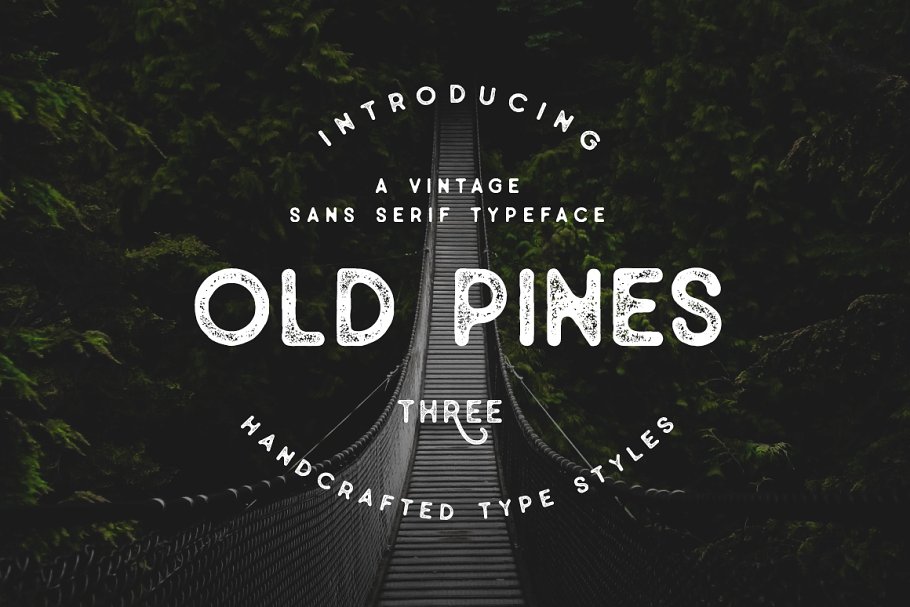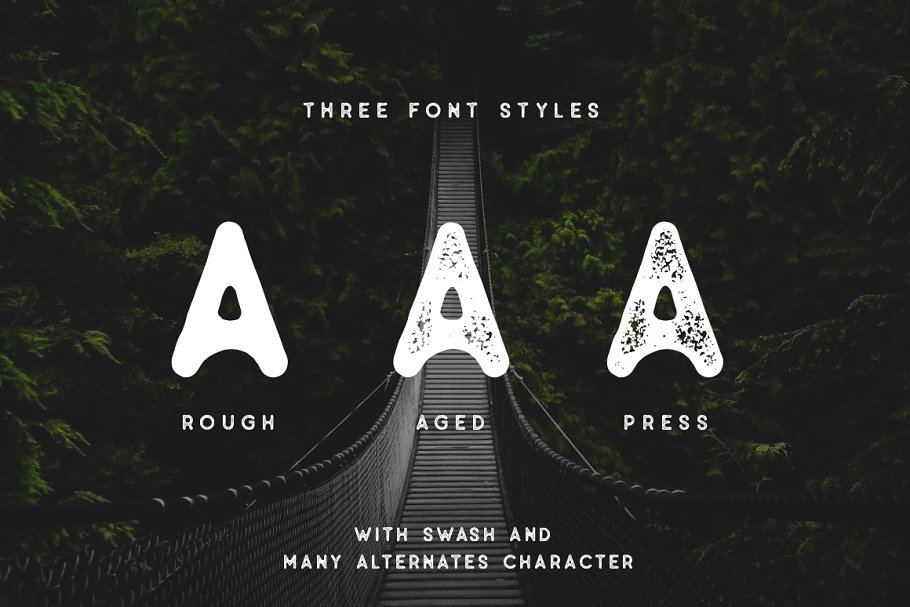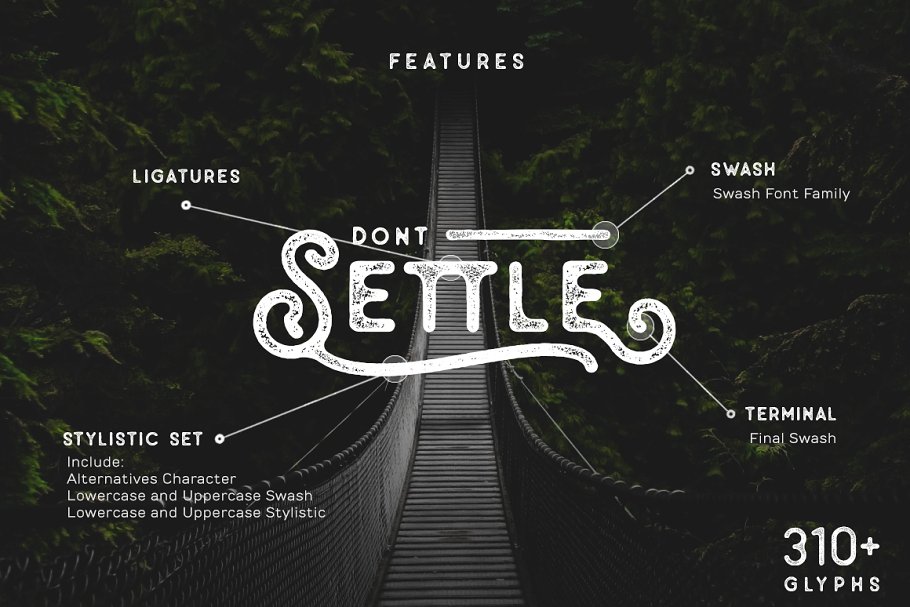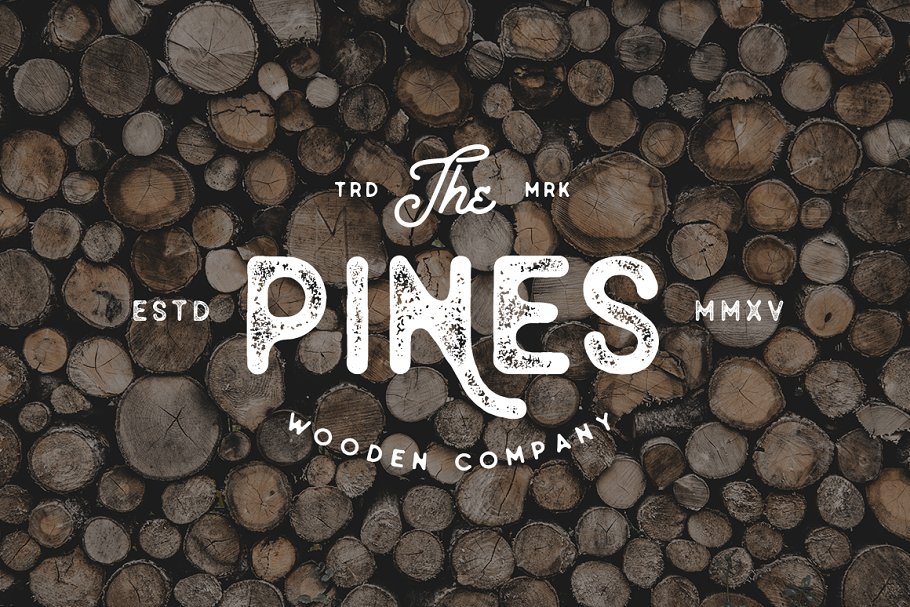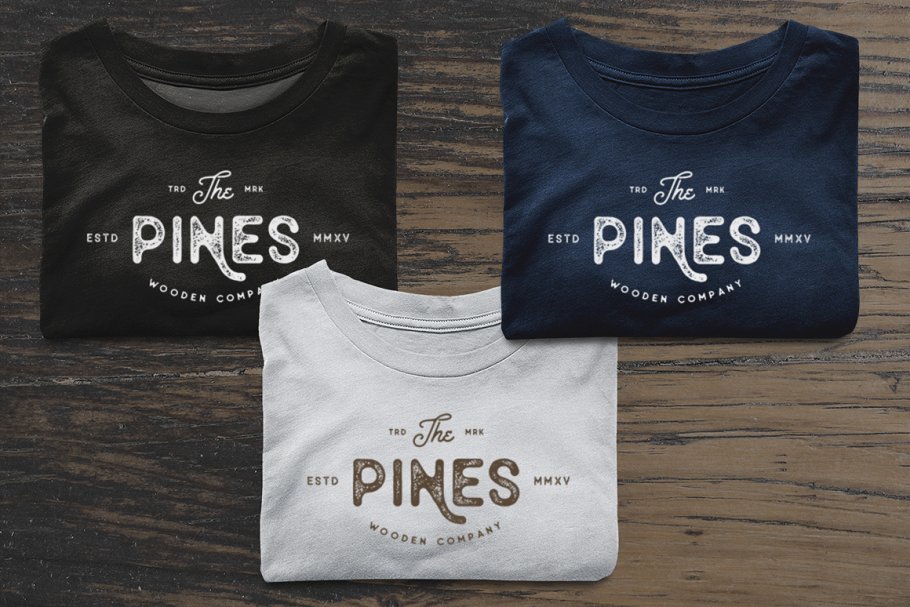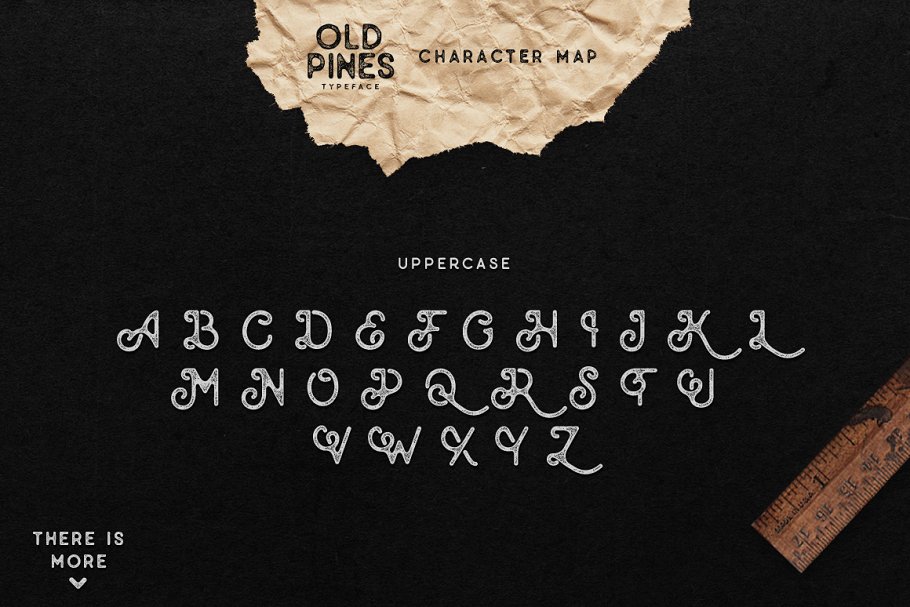
About the Old Pines Vintage Type Font
IntroducingOld Pines Typeface with 3 Styles and Additional Swash Old Pines Typeface is a sans serif font, it has a modern vintage look design styles, The font have smooth edges to simulate the look of an vintage printing, so it will bring a vintage handmade looked like, Come with 3 font styles, Old Pines Regular, Old Pines Aged, Old Pines Press, and Old Pines Swash